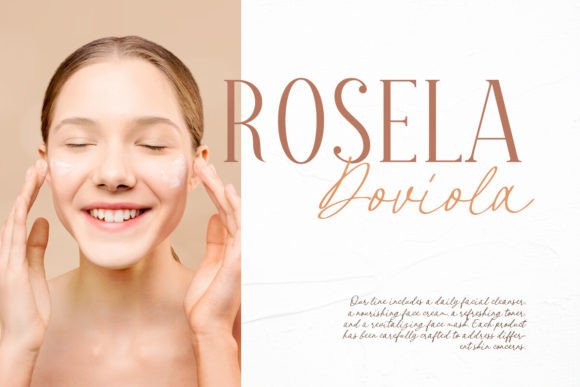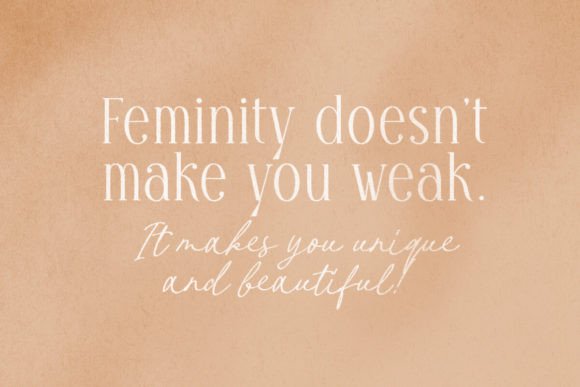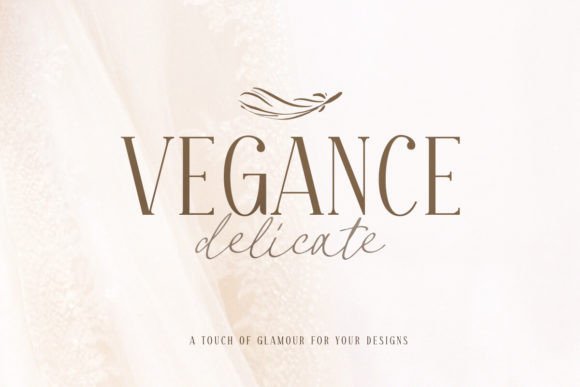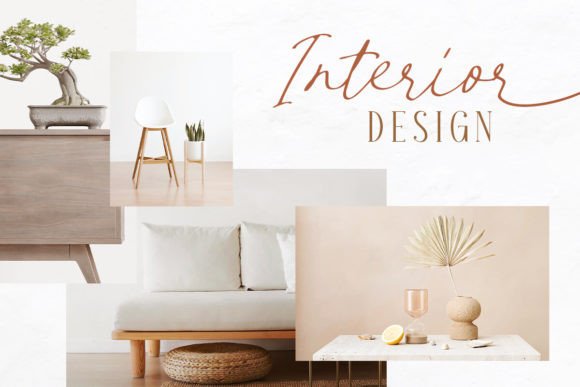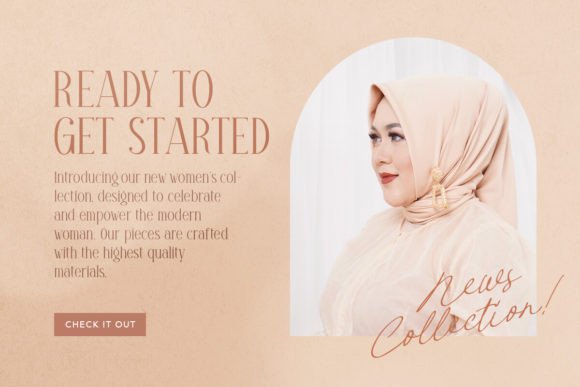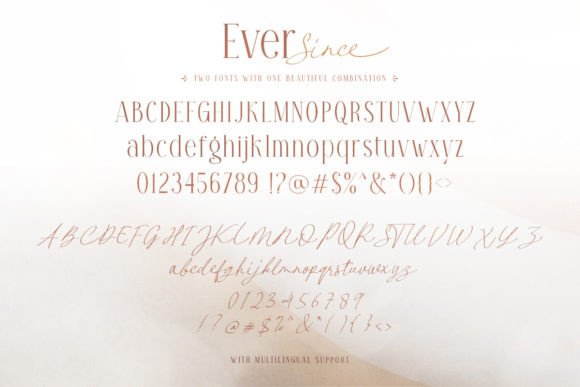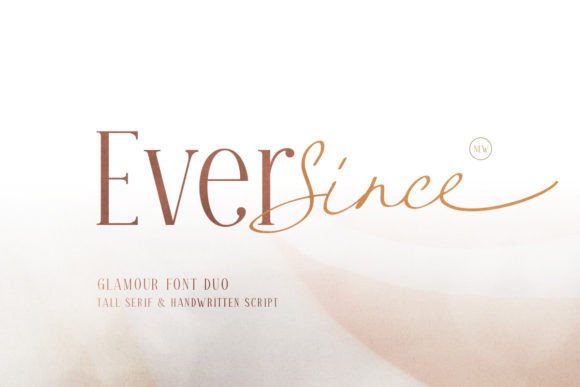
Introducing Ever Since Font: Elevate Your Designs with Elegance and Sophistication
In the world of typography, fonts play a crucial role in conveying the tone and personality of a brand or design. For designers and crafters seeking a unique and versatile font, Ever Since Font is an excellent choice. This font duo combines an elegant tall serif with an authentic handwriting script, making it perfect for various applications, from branding and logos to wedding invitations.
A Font Duo for Endless Possibilities
Ever Since Font is a carefully crafted font duo that consists of two distinct yet complementary fonts. The tall serif font boasts an elegant and sophisticated design, complete with uppercase, lowercase, symbols, and punctuation. This font is ideal for creating a professional and polished look, making it suitable for corporate branding, logos, and high-end marketing materials.
The second font in the duo is an authentic handwriting script that adds a touch of warmth and personality to any design. With its fluid and natural strokes, this script font is perfect for creating a more intimate and emotional connection with your audience. The script font also features an ending swash that can be accessed through the Opentype feature, allowing you to add a decorative touch to your designs.
Versatility and Timeless Appeal
One of the standout features of Ever Since Font is its versatility. The font duo’s minimalist and clean design makes it suitable for a wide range of applications, from modern and trendy to classic and sophisticated. Whether you’re designing a logo, brochure, or wedding invitation, Ever Since Font is an excellent choice.
The font’s timeless appeal is another significant advantage. Unlike trendy fonts that may quickly become outdated, Ever Since Font’s classic design ensures that your designs will remain stylish and relevant for years to come. This makes it an excellent investment for designers and crafters who want to create high-quality designs that stand the test of time.
Perfect for Wedding Invitations and More
Ever Since Font is particularly well-suited for wedding invitations and other formal events. The elegant tall serif font is perfect for creating beautiful and sophisticated wedding stationery, while the handwriting script adds a touch of romance and whimsy. The font duo’s versatility also makes it suitable for other applications, such as:
- Branding and logos: Create a professional and polished brand identity with Ever Since Font’s elegant tall serif font.
- Marketing materials: Use the font duo to create eye-catching brochures, flyers, and posters that showcase your products or services.
- Packaging design: Add a touch of elegance and sophistication to your product packaging with Ever Since Font.
- Digital media: Use the font duo to create engaging and stylish digital content, such as social media graphics and blog posts.
Key Features of Ever Since Font
Here are some key features of Ever Since Font:
- Font duo: Includes an elegant tall serif font and an authentic handwriting script.
- Elegant tall serif font: Features uppercase, lowercase, symbols, and punctuation.
- Handwriting script: Includes an ending swash that can be accessed through the Opentype feature.
- Versatile: Suitable for a wide range of applications, from modern and trendy to classic and sophisticated.
- Timeless appeal: Classic design ensures that your designs will remain stylish and relevant for years to come.
| Author | baletype |
Ever Since Font is an exceptional font duo that offers elegance, sophistication, and versatility. With its elegant tall serif font and authentic handwriting script, this font duo is perfect for designers and crafters seeking to create high-quality designs for various applications. Whether you’re designing a logo, wedding invitation, or marketing materials, Ever Since Font is an excellent choice. Its timeless appeal and versatility make it an excellent investment for anyone looking to elevate their designs.